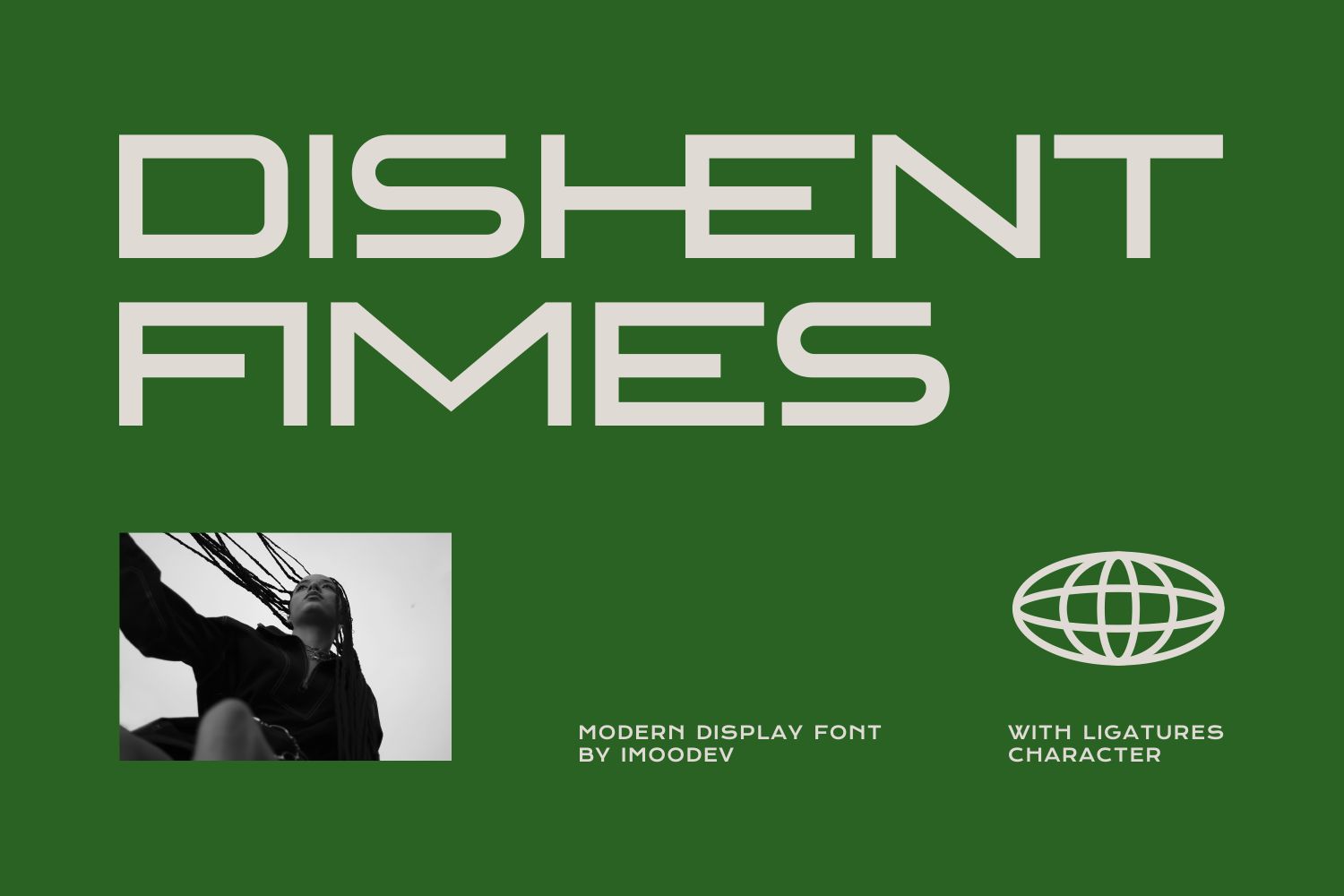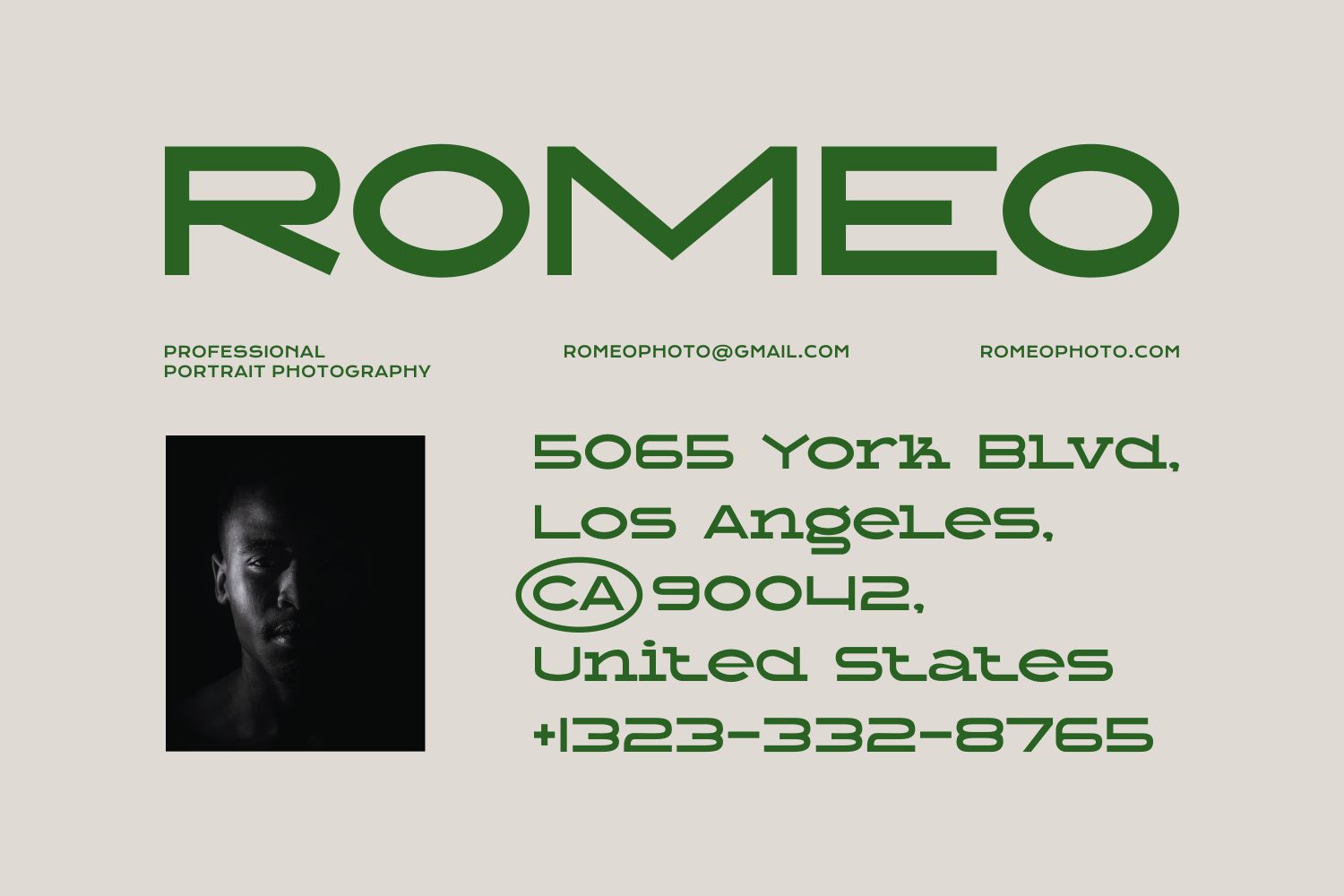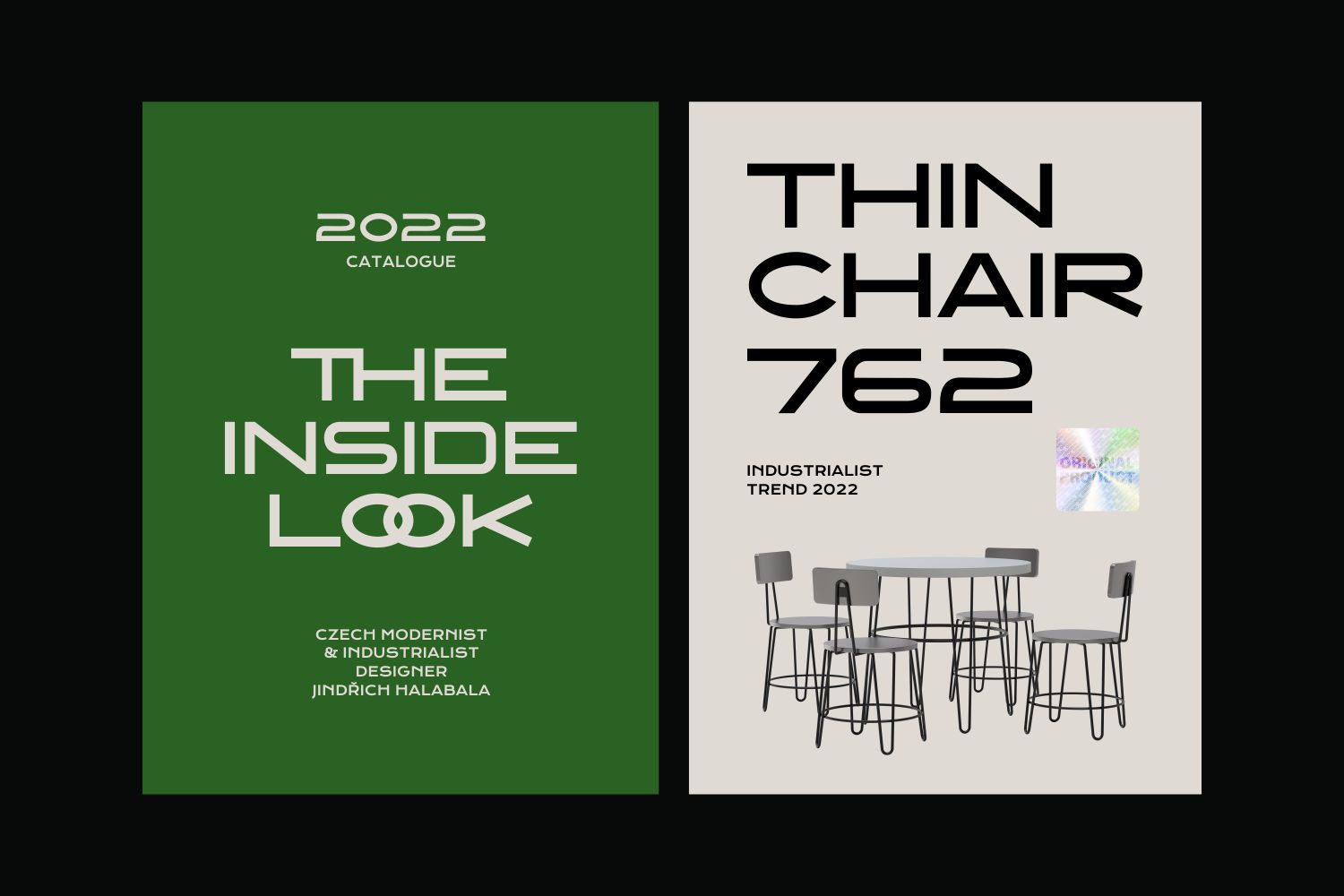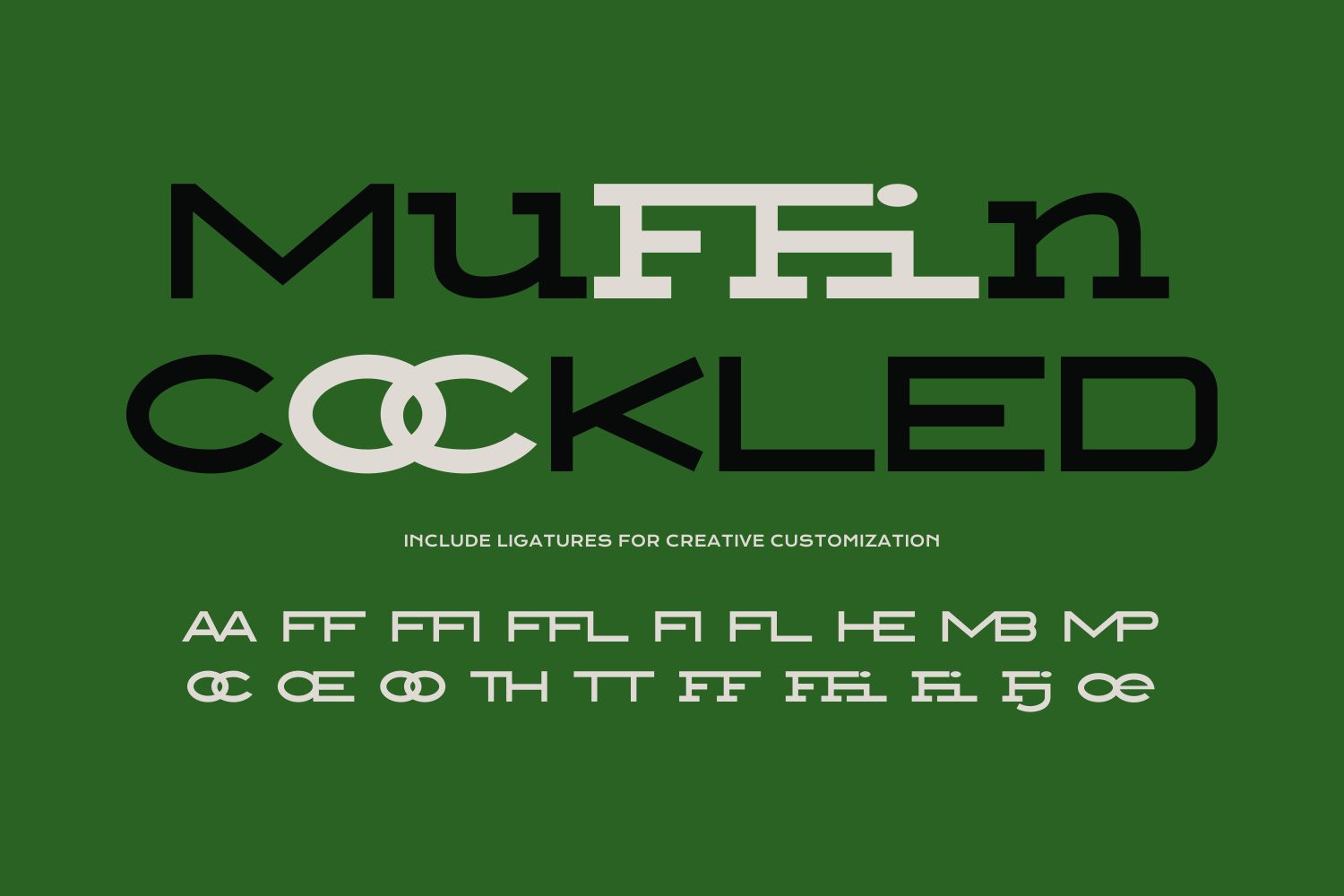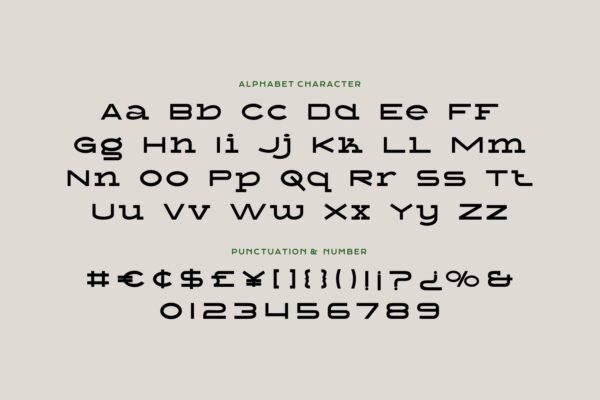
Dishent Fimes is a modern display font designed with a futuristic geometric style and bold character shapes. Its sharp edges and clean construction make it ideal for creating impactful headlines, posters, and branding projects that demand a sleek and contemporary look. The font’s unique balance of minimalism and strength gives it a versatile edge, ensuring it stands out in both print and digital media.
Equipped with stylish ligatures and alternative characters, Dishent Fimes offers flexibility for creative customization. Perfect for fashion editorials, product packaging, tech branding, and modern advertising, this font provides designers with a powerful tool to express innovation and bold visual identity.
Dishent Fimes